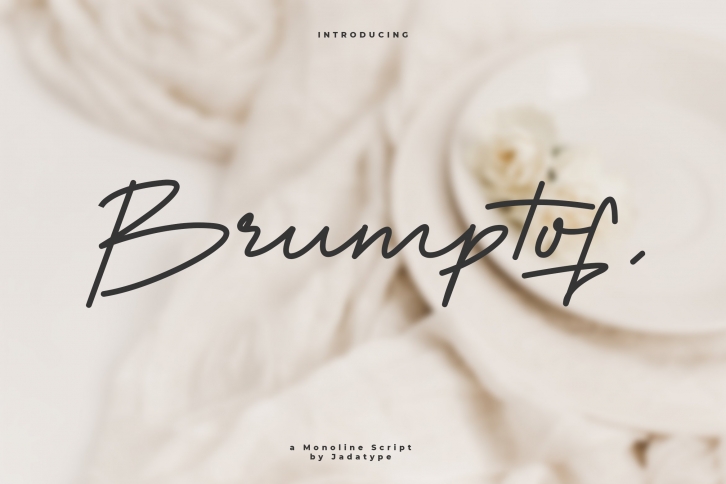
Brumptof is a beautiful font that was designed by jadatype2. It's a great choice for designers and creatives who need such a font. It was released on April 4, 2022 and the file size is 3.79 MB. Brumptof may give a more youthful, expressive and casual look to your project. It is a very beautiful, refined, elegant, and high-quality font.